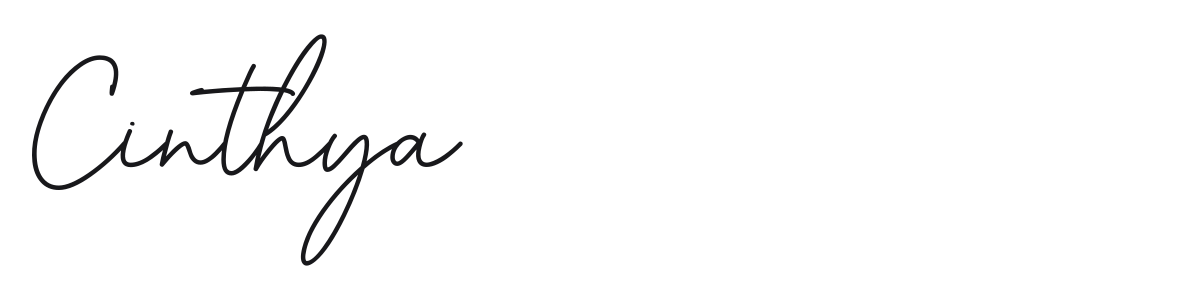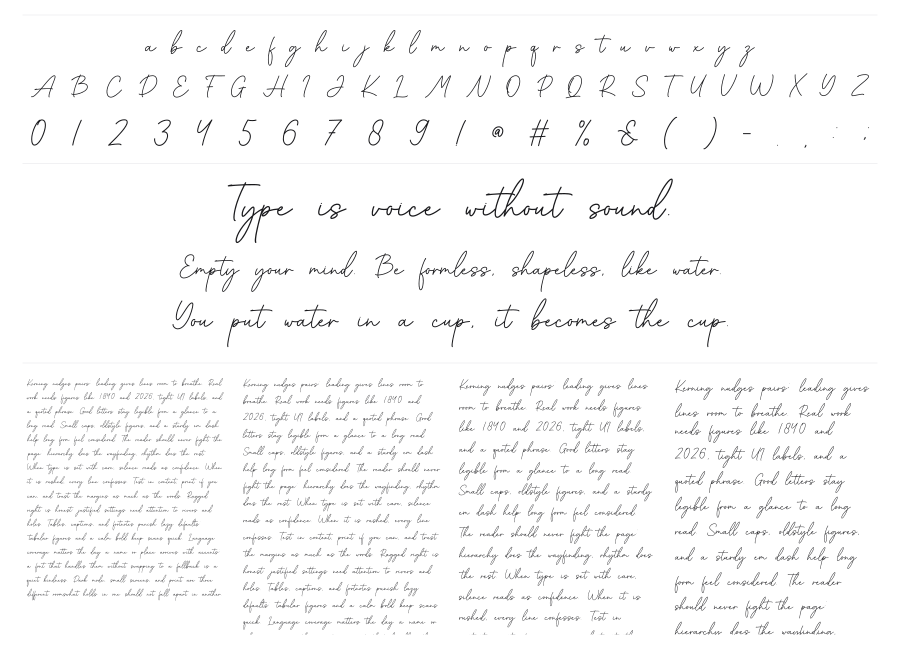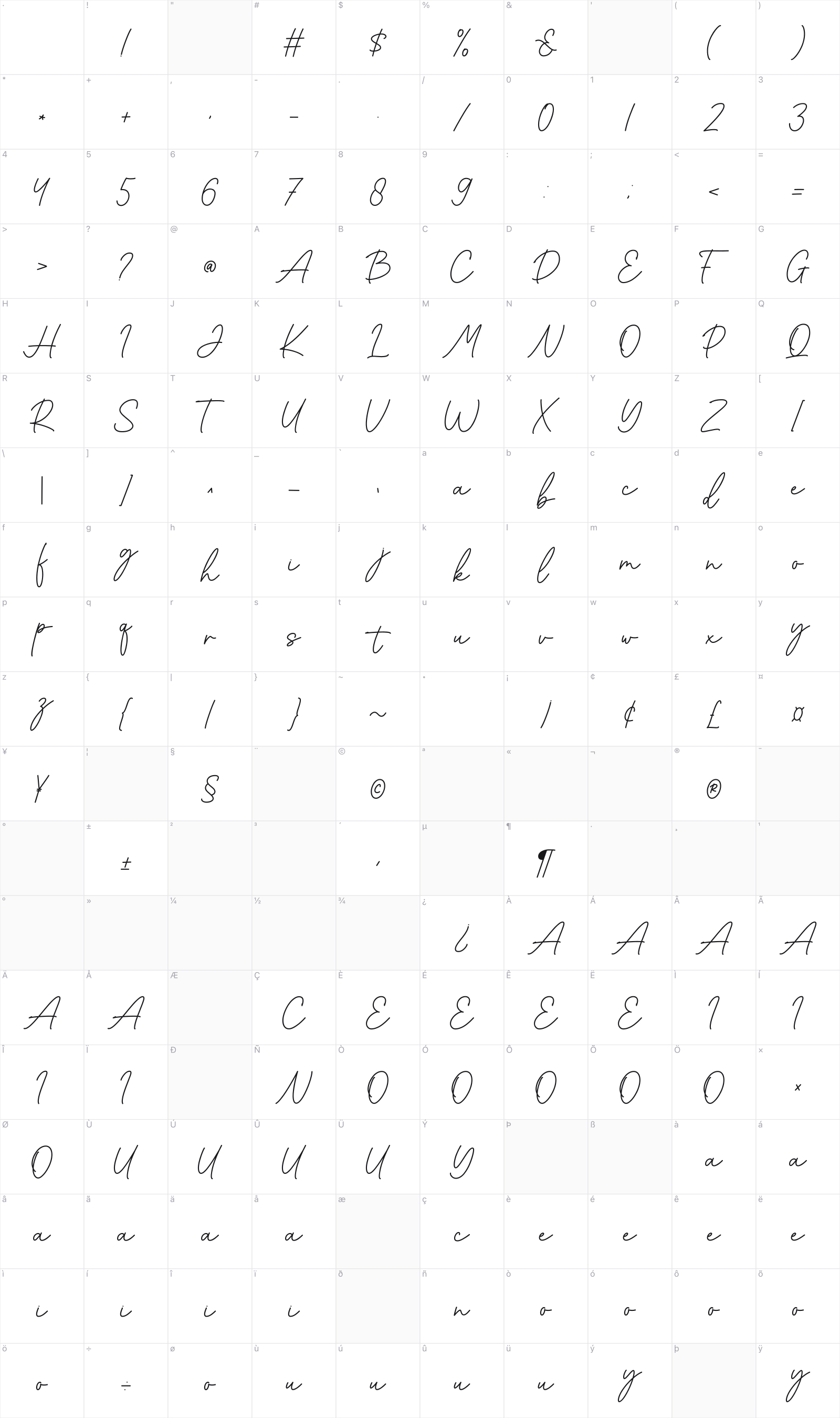
Cinthya
by Graphix Line Studio
Cinthya is a flowing casual script with elegant loops and long sweeping descenders that feel naturally handwritten. The near-monoline weight keeps it light and airy, giving it a refined yet approachable character. It suits wedding stationery, branding, and lifestyle packaging where a personal, graceful touch is needed.